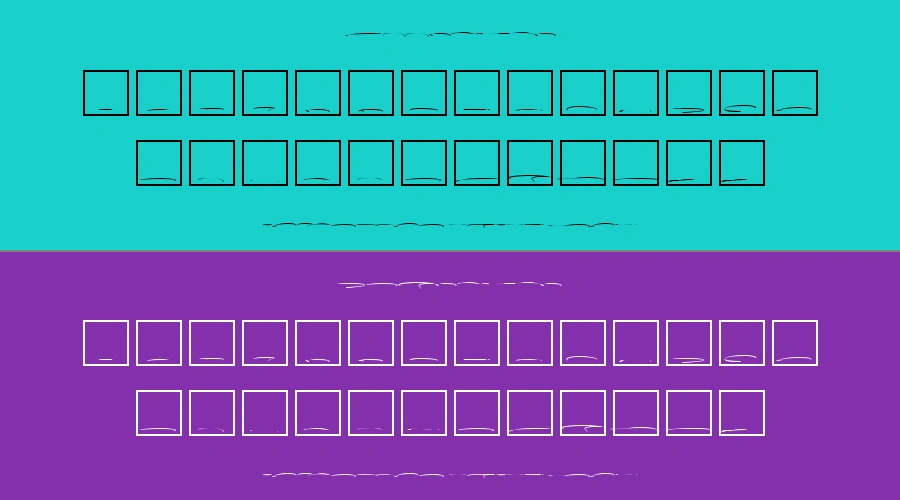
About Androgino swash Font
Androgino swash Font embodies typographic excellence through its masterful combination of flourished entries and generational appeal. Created for merchandise graphics, this typeface delivers exceptional consistency and professional standards across all applications. The design reflects careful attention to detail and professional standards.
Advanced capabilities include distinctive elegant proportions and versatile initial forms, giving designers creative control. When used in regulatory documents, Androgino swash Font exhibits remarkable hinting quality. The harmonious balance between bowl width and market positioning sets this typeface apart.
Androgino swash Font |